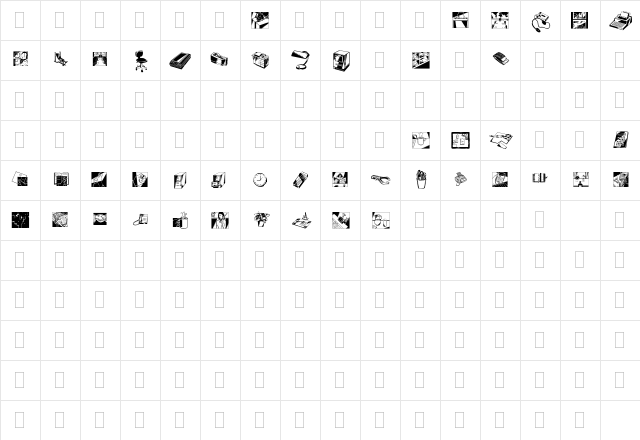
DF Industrials Regular
DF Industrials Family
Design Context for DF Industrials
DF Industrials is a composed and adaptable typeface that performs quietly and consistently across a wide range of design contexts.